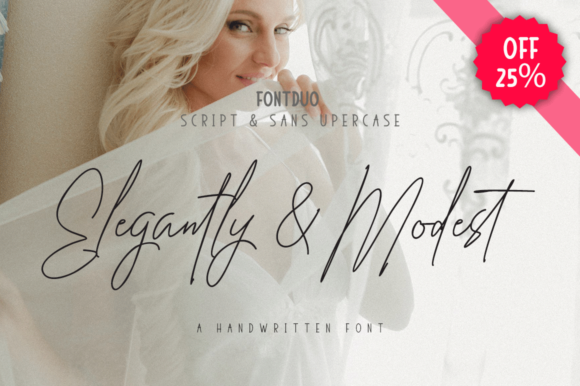
Unleashing the Charm of Handwritten Design
As a designer, you know that sometimes the best ideas come from the most unexpected places. It’s 3 AM, your coffee is cold, and you’re staring at a blank canvas, trying to bring your vision to life. You need a spark, something that will transport you to a world of creativity and inspiration. For me, it’s often a beautiful font that sets the tone for my designs.
Enter the Elegantly & Modest Duo Font, a stunning handwritten font duo that will add a touch of elegance and sophistication to your work. With its natural, handwritten vibe, this font is perfect for designers who want to create unique and memorable designs that stand out from the crowd. Whether you’re designing a wedding invitation, a branding package, or a marketing campaign, the Elegantly & Modest Duo Font is a valuable asset that will elevate your work to the next level.
Elegantly & Modest Duo Font Key Features
- Font Family: Elegantly & Modest Duo Font is a dual font system, consisting of two fonts: Elegantly and Modest.
- Character Set: The font includes a wide range of characters, including Latin, Cyrillic, and Greek alphabets, as well as punctuation marks and symbols.
- Unique Characteristics: The Elegantly font features elegant, cursive lines, while the Modest font boasts clean, minimalist typography, making it ideal for creating visually appealing contrast in designs.
Elegantly & Modest Duo Font Review
I recently had the chance to work with the Elegantly & Modest Duo Font and here’s my honest review.
- ✨ Elegant and minimalist design that adds a touch of sophistication to any project.
- ✨ Well-balanced pairing of two distinct font styles that complement each other perfectly.
- ✨ Highly legible, making it suitable for both body and headline text.
- ⚠️ Limited character set and language support, which may be a concern for multilingual projects.
- ⚠️ Not ideal for bold or dramatic text, as the font can come across as too understated.
Overall, I’m impressed with the Elegantly & Modest Duo Font’s clean design and versatility. While it may not be the best choice for every project, it’s a solid option for those looking for a elegant and modest font pairing. With a bit more character set support and language options, this font could be even more appealing to designers.
Tips for Getting the Most Out of the Elegantly & Modest Duo Font
For optimal results, pair the Elegantly & Modest Duo Font with a clean and minimalist design aesthetic. Use it for headings and titles to add a touch of sophistication and elegance.
The Elegantly & Modest Duo Font is ideal for:
- Corporate branding and marketing materials
- Editorial and publishing projects
Alternatives to Elegantly & Modest Duo Font
Playfair Display is a high-end serif font that combines elegance and sophistication. It features intricate details and ornate flourishes, making it perfect for luxury brands, high-end fashion, and wedding invitations. Compared to Elegantly & Modest Duo Font, Playfair Display is more ornate and luxurious, while Elegantly & Modest Duo Font is more minimalist and understated.
Merrweather is a classic serif font that exudes timeless elegance and sophistication. It features a strong, sturdy design that works well for books, magazines, and other publications that require a sense of tradition and authority. Compared to Elegantly & Modest Duo Font, Merriweather is more formal and traditional, while Elegantly & Modest Duo Font is more modern and versatile.
3. Georgia
Georgia is a serif font designed specifically for digital use. It features a clean, classic design that is easy to read on screens. Georgia is perfect for websites, e-books, and other digital publications that require a clear and readable font. Compared to Elegantly & Modest Duo Font, Georgia is more functional and practical, while Elegantly & Modest Duo Font is more decorative and attention-grabbing.
What is the recommended font size and line height for the Elegantly & Modest Duo Font?
For optimal readability, we recommend using the Elegantly & Modest Duo Font with a minimum font size of 12 points and a line height of 1.5 to